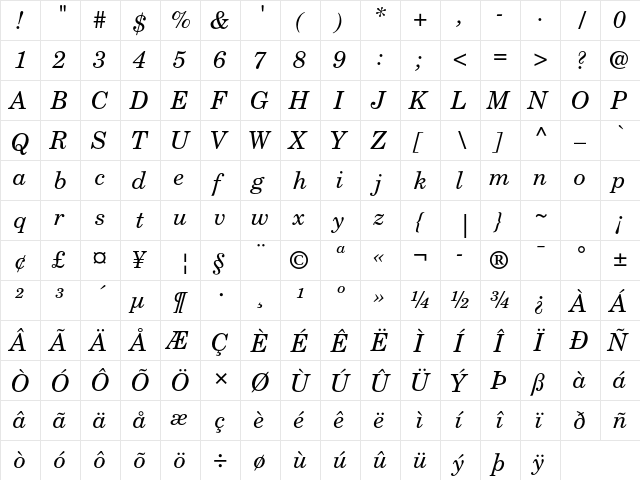
New Century Schoolbook LT Std Italic Font Preview
| Designer | Morris Fuller Benton |
Design Context for New Century Schoolbook LT Std Typeface
New Century Schoolbook LT Std offers clean, dependable letterforms without strong stylistic allegiance, making it a practical choice for designers who need flexibility. The slanted form adds forward momentum and visual energy. The delicate stroke weight brings airiness and refinement to layouts.
Pro Tip: Try New Century Schoolbook LT Std for annotation and caption copy alongside an upright companion — the contrast in angle creates a dynamic but ordered typographic system.